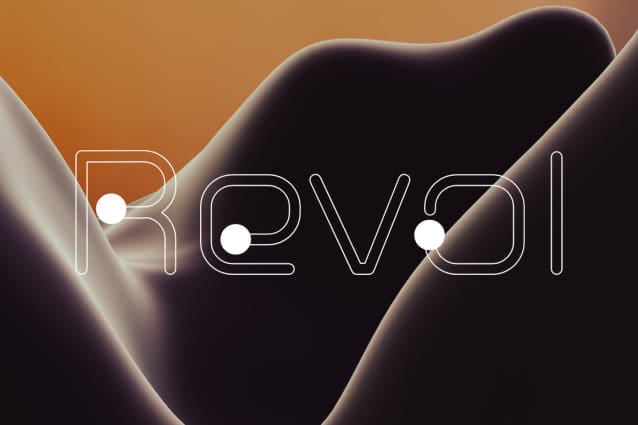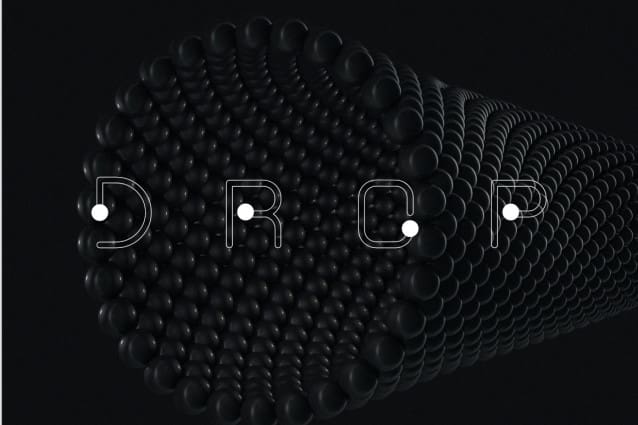
Nuixyber Glow Next Font
Nuixyber Glow Next Font is an electrifying display font that captures the essence of pulsating neon lights. Its characters are infused with vibrant, glowing elements, giving the impression of a constant energy flow. The font is modern and edgy, perfect for conveying a dynamic and tech-savvy message.